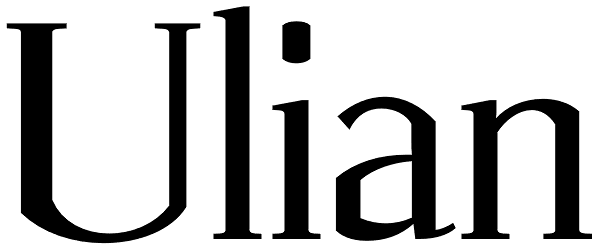
Ulian
Ulian is a crisp, uniquely individual display face from Typodermic—a fresh departure in an entirely different direction. Ulian combines the distinctive straight sides of blackletter with features of more current types; the curves, serifs and...